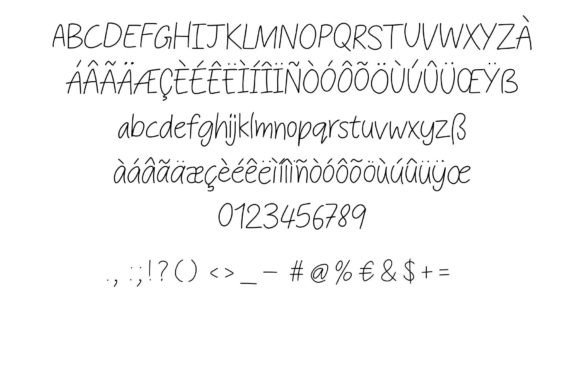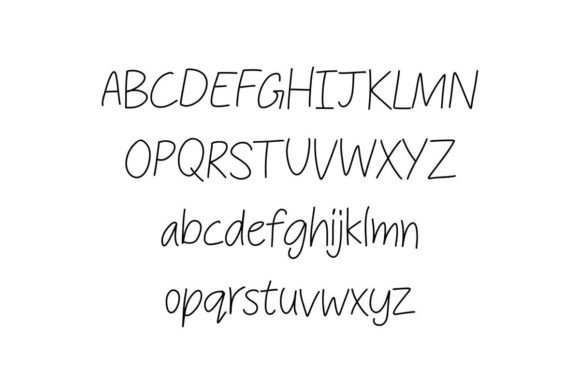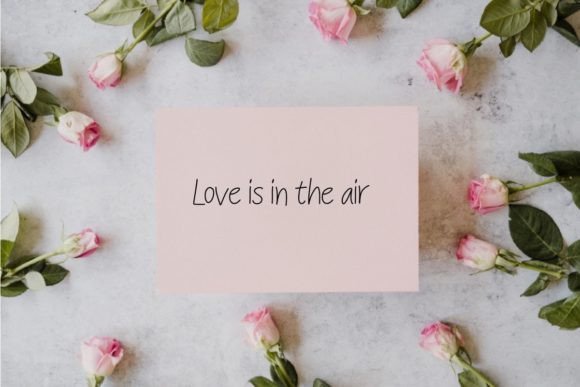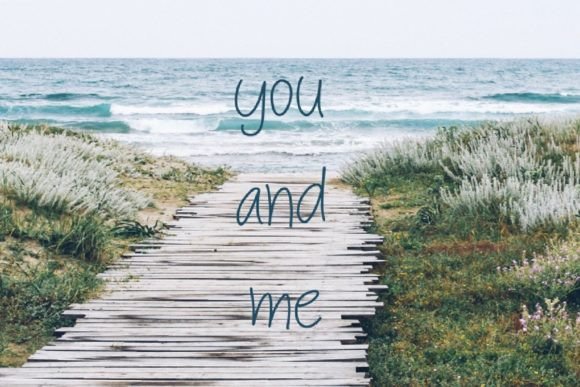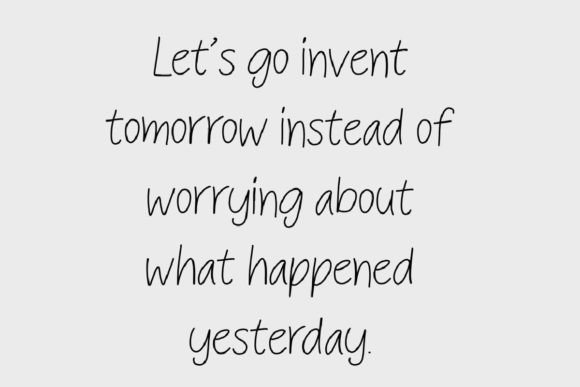
Aina Font
About Aina Font
A simple and minimalistic handwritten font is the epitome of clean and original typography, making it suitable for a wide array of creative projects. Its understated elegance and straightforward design ensure that it can seamlessly integrate into various contexts without overwhelming the overall composition. Whether you’re working on branding, packaging, invitations, social media graphics, or any other creative endeavor, this font provides a versatile and timeless typographic solution.
The beauty of a simple and minimalistic handwritten font lies in its ability to convey a sense of sophistication and authenticity. Its clean lines and unpretentious style allow the message or design elements to shine without unnecessary distractions, making it an excellent choice for projects that require clarity and simplicity.
This font’s versatility enables it to adapt to different design aesthetics, from modern and sleek to classic and timeless. Its straightforward and easy-to-read letterforms make it accessible to a wide audience, ensuring that your message is communicated effectively. Whether used in bold headlines, subtle captions, or any other typographic application, this font adds a touch of elegance and clarity to your creations.
Embrace the simplicity and versatility of this simple and minimalistic handwritten font in your creative endeavors, and let its clean and original typography enhance your designs. Whether you’re aiming for a contemporary look or a timeless appeal, this font allows you to create visually pleasing and engaging designs that resonate with your audience. Enjoy the process of transforming your ideas into clean and sophisticated creations with the help of this versatile font.